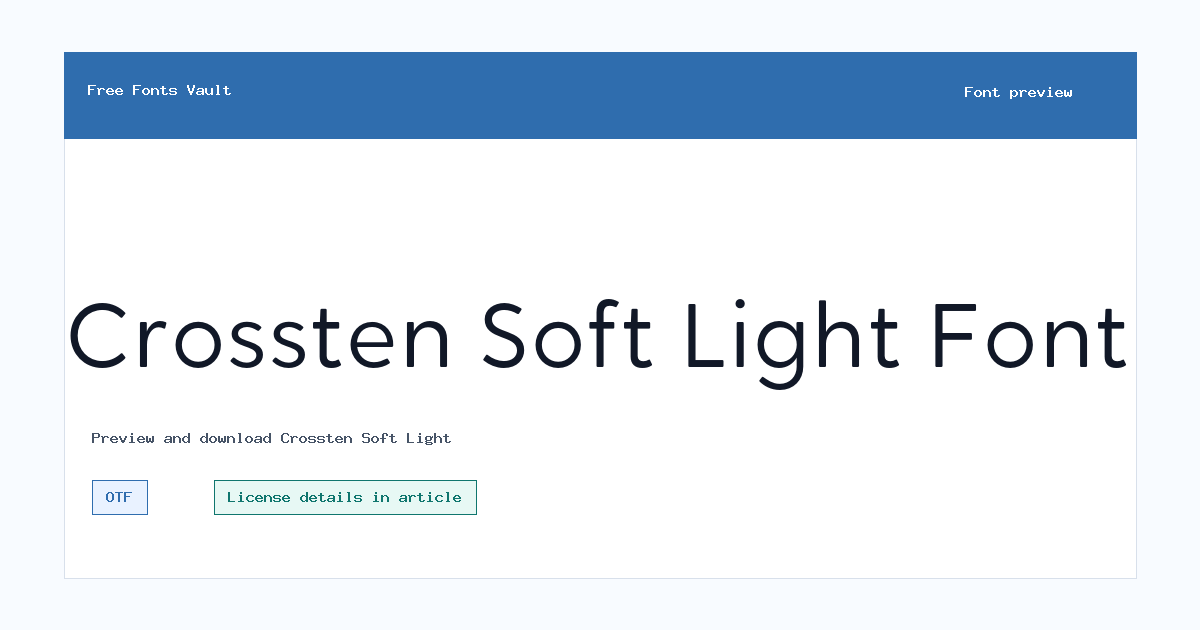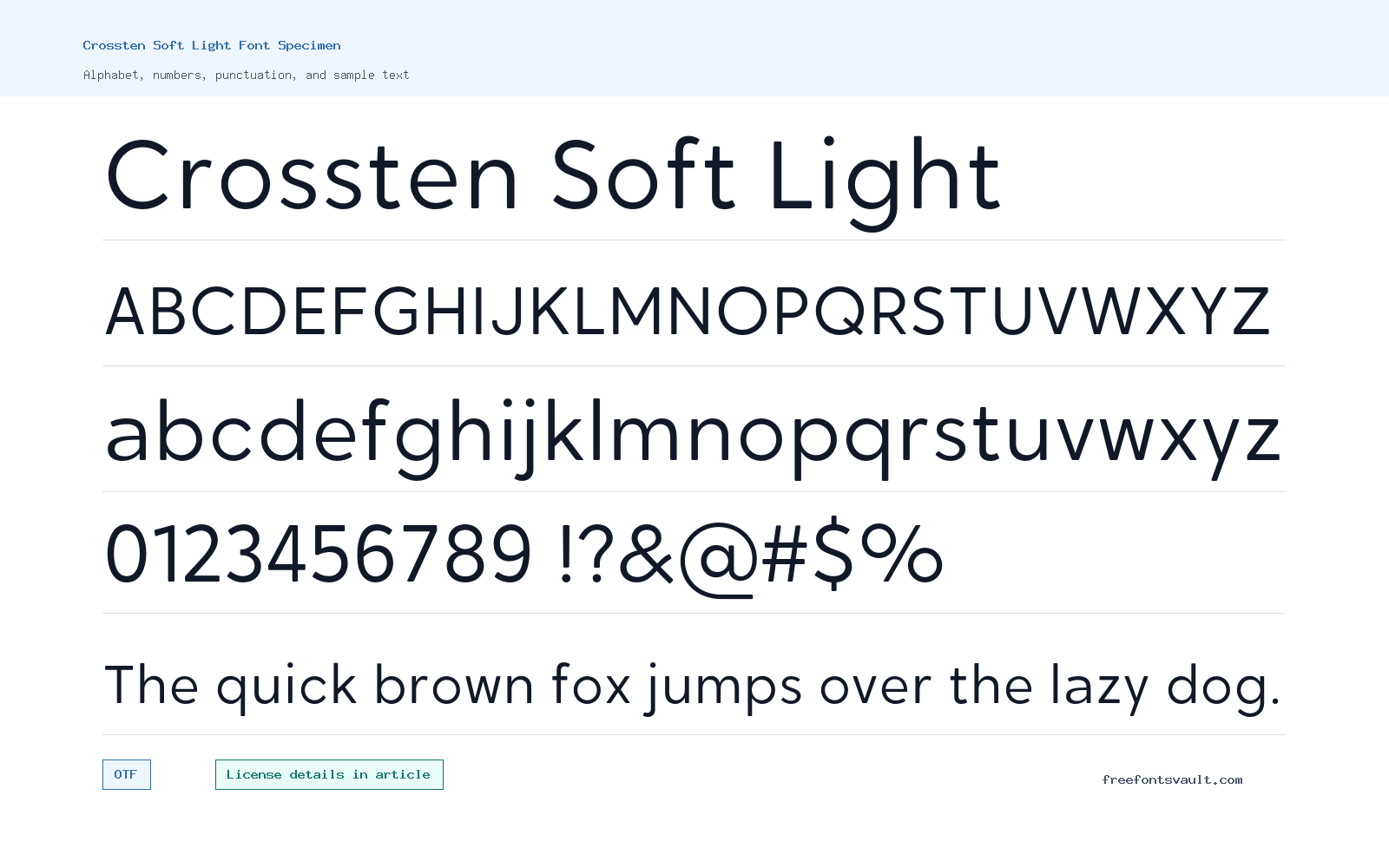
Crossten Soft Light
Crossten Soft Light is a gentle, low-weight member of the Crossten family made for clean headings, short display lines, and quiet branding tests. If a heavy typeface feels too loud for your layout, this style gives you a lighter voice while still keeping the letter shapes tidy and modern.
About Crossten Soft Light Font
Use the live preview before downloading if your design includes thin strokes over a photo, a colored background, or a small mobile layout. Light fonts can look elegant, but they need enough contrast to stay readable. Crossten Soft Light usually works best with simple backgrounds, clear foreground color, and a little extra tracking for all-caps text.
- Light 300 weight with an upright normal style.
- Clean display personality suited to short, refined text.
- Best checked at the final size because thin strokes can fade in small previews.
- Minimal headings, names, title graphics, and invitation text.
- Soft logo drafts, labels, packaging mockups, and social graphics.
- Designs that need a modern type style without the weight of a bold face.
- Pairing with a regular or medium-weight text font for longer paragraphs.
Start by testing your real headline rather than a random sample sentence. If the text looks too delicate, raise the size, increase contrast, or move to a heavier companion weight. For body copy, pair it with a simpler reading font and reserve Crossten Soft Light for the parts of the design that need a calm display accent.
Is Crossten Soft Light a light font?
Yes. It is marked as a 300-weight style, which is normally treated as a light weight.
What is Crossten Soft Light best for?
It is best for short headings, soft branding tests, invitation text, labels, and clean display layouts where a lighter style is readable.